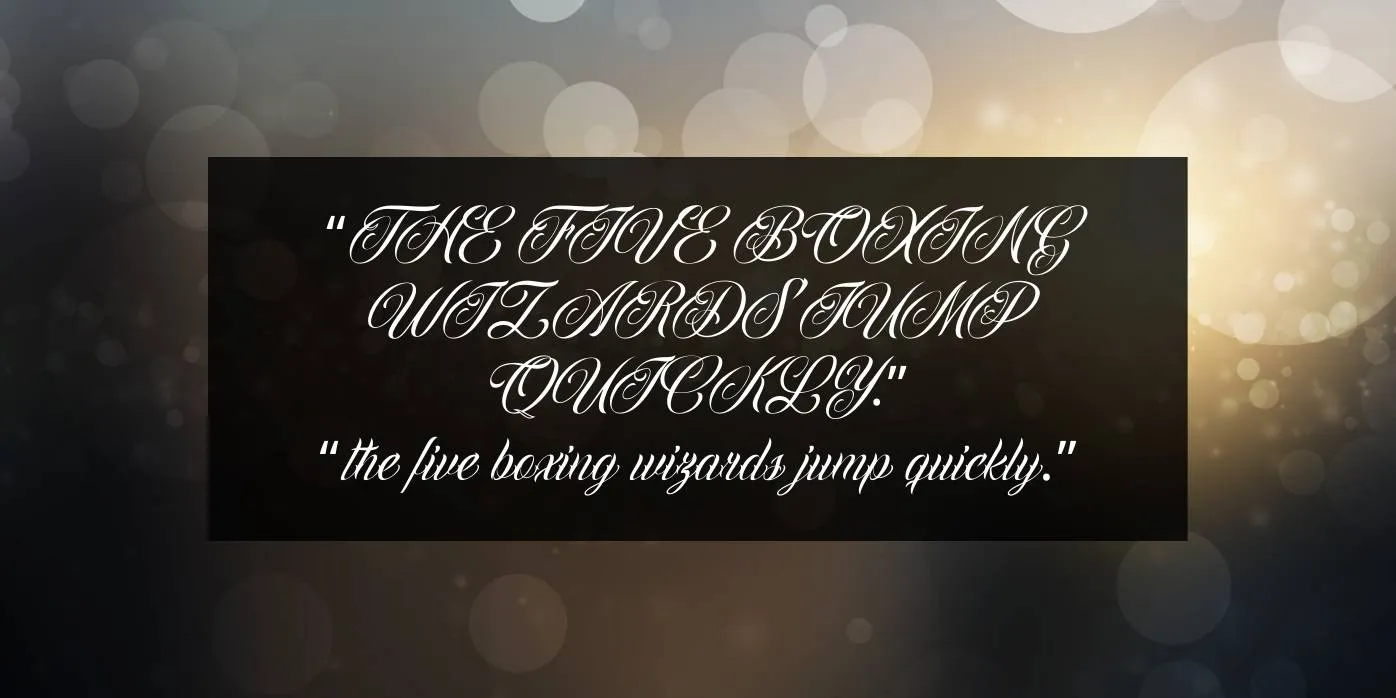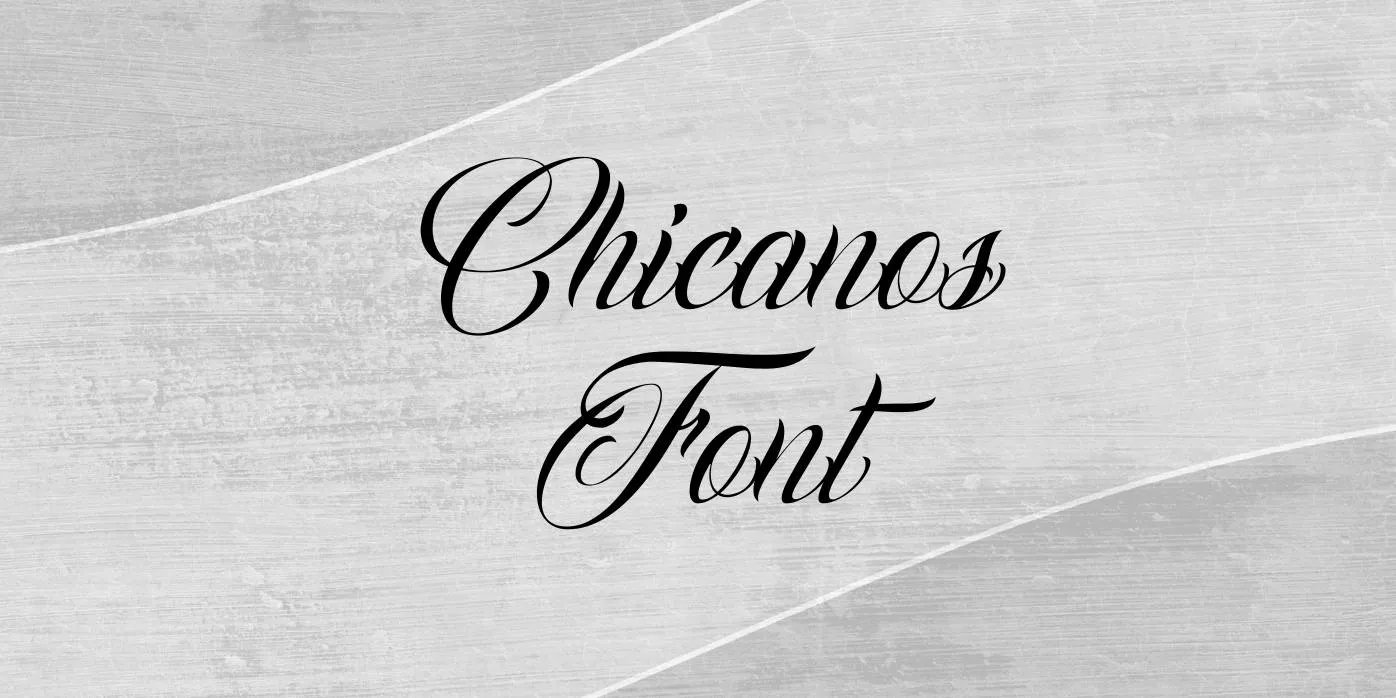
Chicanos Font
Here, we are going to introduce a stylish typeface named Chicanos Font. This awesome font family was developed by Billy Argel. It belongs to the Calligraphy font family. It is a perfect choice for creating beautiful headlines, posters, titles, and short paragraphs of text.
The Chicanos Font family contains two different styles: Regular and Bold. Each style has its own unique look and feel. The Regular style is more suitable for body text, while the Bold style is ideal for headlines and titles. Another similar font which is the ondise font is perfect for different designs.